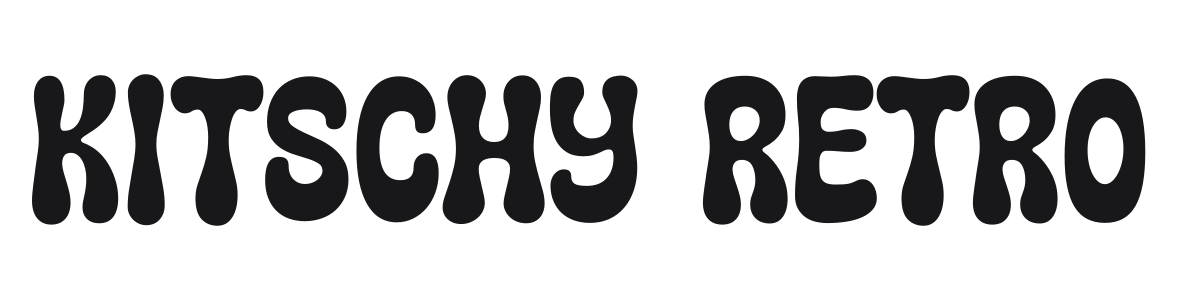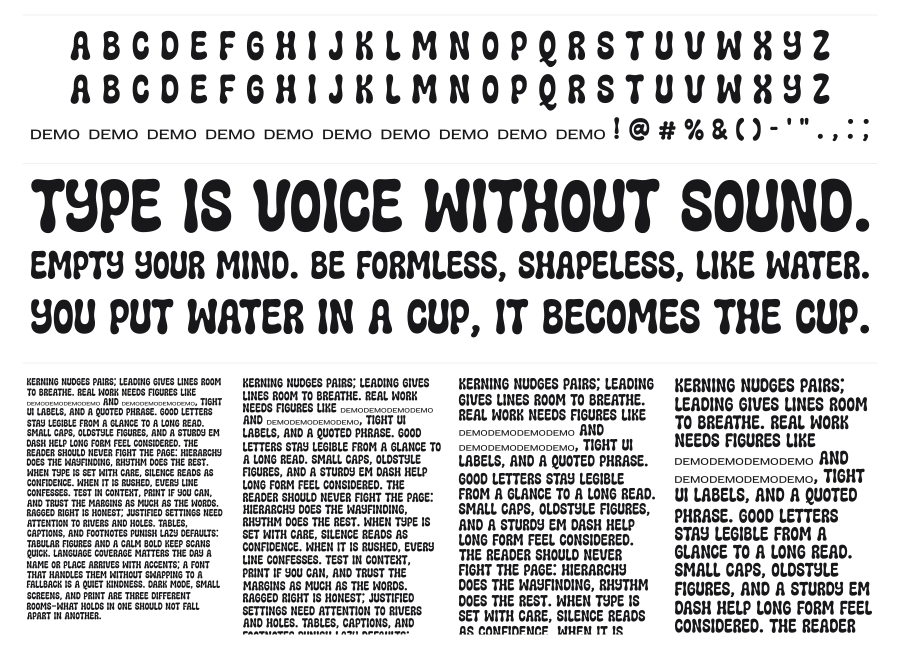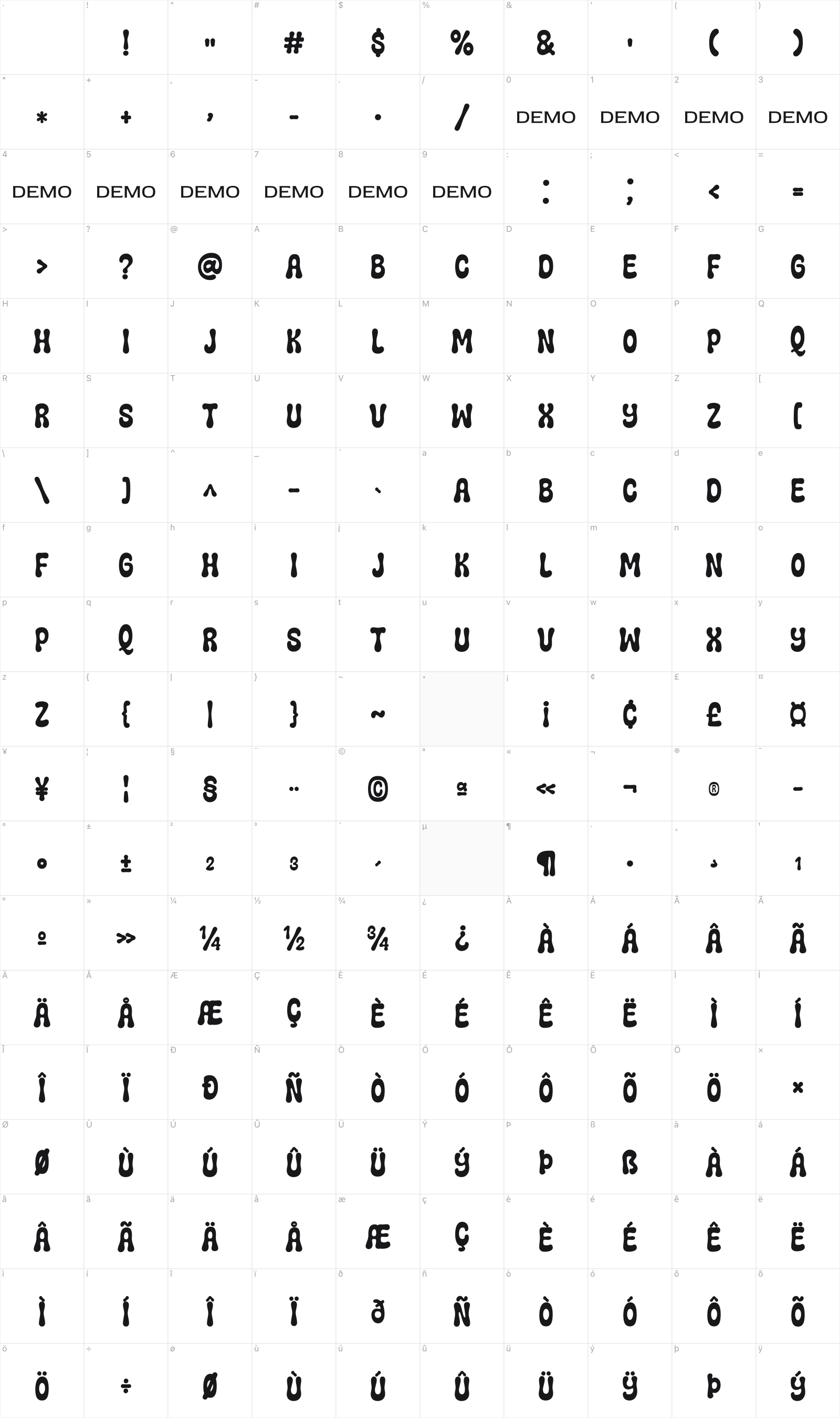
Kitschy Retro
Kitschy RetroLicense is a bold, inflated groovy display font dripping with 1960s–70s psychedelic energy. Every letter balloons outward with rounded terminals and swelling stroke junctions that leave almost no hard edges anywhere. It works best at large sizes where that bubbly, retro personality can fully land.